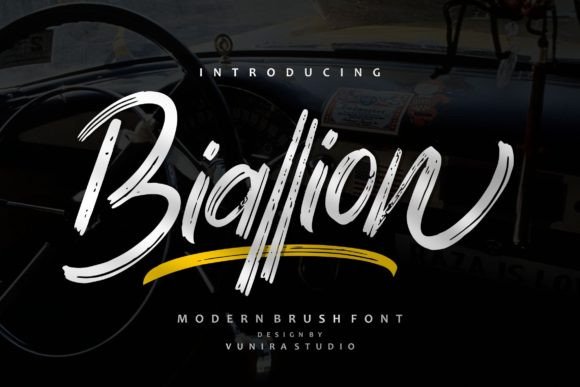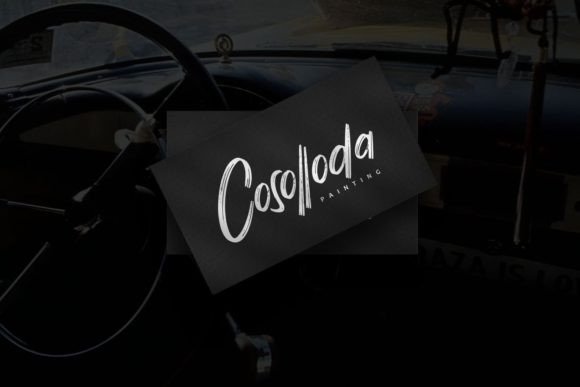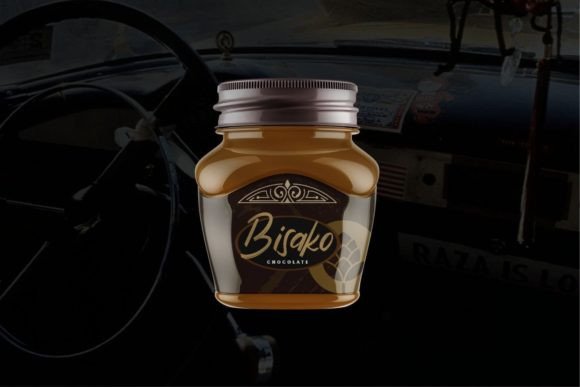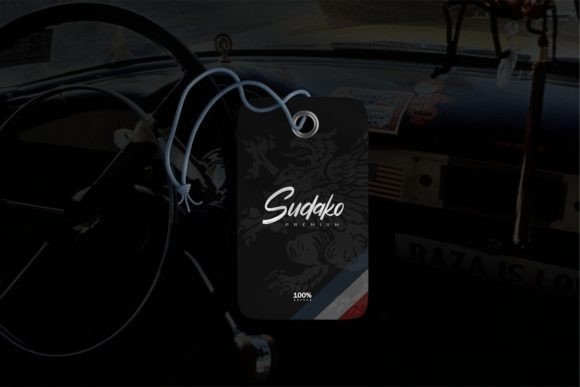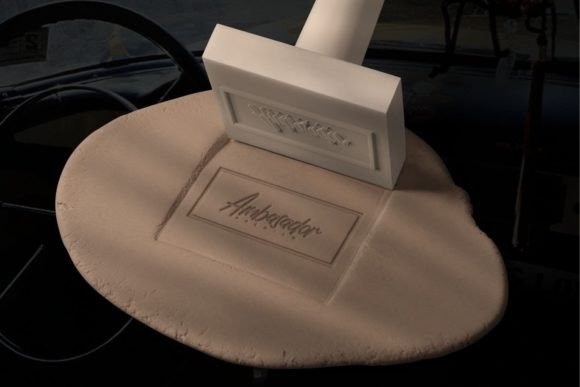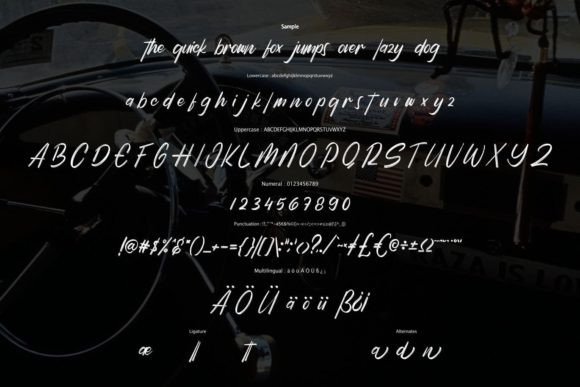
Biallion Font
About Biallion Font
“Biallion” is a font that exudes freshness and modernity through its handwritten brush style. Its versatility knows no bounds, making it a perfect fit for a wide range of creative designs. This font has the unique ability to elevate any project it’s applied to, infusing them with a contemporary edge and artistic flair. By incorporating “Biallion” into your creative ideas, you’ll notice how it breathes life into them, adding a touch of vibrancy and sophistication.
The fresh and modern qualities of “Biallion” make it particularly well-suited for designs that aim to convey a sense of youthfulness, energy, and creativity. Whether you’re working on branding, packaging, social media graphics, invitations, quotes, or any other creative project, this font seamlessly integrates into the visual narrative, adding a touch of dynamic elegance and artistic allure.
In branding, “Biallion” brings a modern and fresh vibe to the identity. Its handwritten brush strokes create a sense of spontaneity and innovation, making it ideal for brands that want to communicate a contemporary and creative image. Whether used in logos, product labels, or promotional materials, this font adds a personal touch, enhancing the brand’s authenticity and appeal to the audience.
For packaging design, “Biallion” enhances the overall look and feel of products. Its modern brush style adds a touch of excitement to labels, making products appear more lively and appealing. Whether used for food packaging, cosmetics, or lifestyle items, this font creates a connection with consumers, making the products feel more current and attractive.
In social media graphics, “Biallion” infuses a sense of creativity and modernity. Whether you’re designing Instagram posts, Pinterest pins, or Facebook covers, this font adds a contemporary and artistic vibe to your content. Its dynamic brushstrokes make social media posts feel more vibrant and engaging, capturing the attention of your audience and fostering a deeper connection.
Invitations and quotes shine with the use of “Biallion.” Its modern and handwritten brush style creates a visually striking contrast, making the text stand out and leaving a lasting impression on readers. Whether used for event invitations, inspirational quotes, or promotional materials, this font adds a touch of elegance and creativity, making the messages visually compelling and emotionally resonant.
The availability of glyphs and ligatures, thanks to the PUA encoding, enhances the font’s versatility. Designers can easily access a wide range of alternate characters and decorative elements, allowing for creative freedom and customization. These additional glyphs and ligatures empower you to create unique and personalized designs, adding a bespoke touch to your projects and enhancing their individuality.
In summary, “Biallion” is not just a font; it’s a creative catalyst that brings a fresh and modern touch to your designs. Its handwritten brush style, combined with its versatility and PUA encoding, makes it a valuable asset for a variety of creative projects. By incorporating “Biallion” into your favorite ideas, you breathe life into them, infusing them with a contemporary and vibrant spirit, ensuring that your designs are not just visually appealing but also leave a lasting impression on your audience.